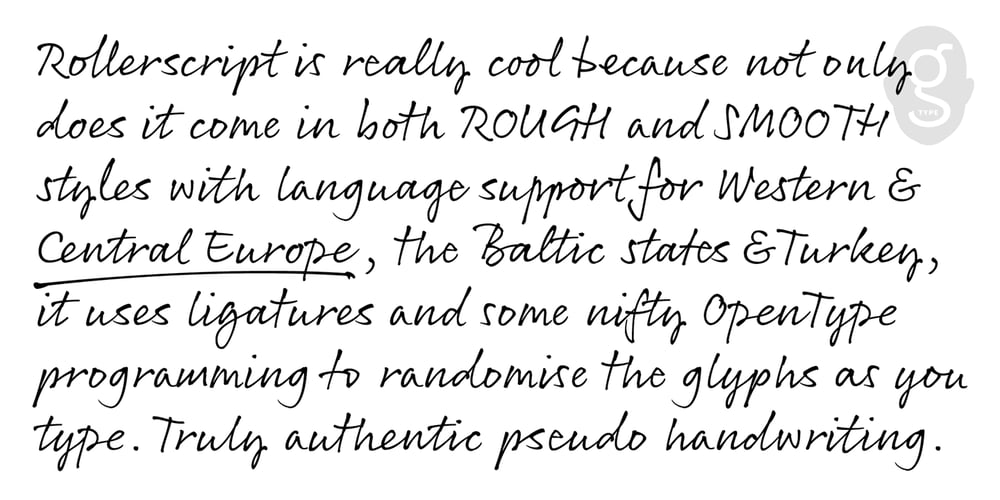
Rollerscript
Rollerscript font
Rollerscript Font Family was designed by Nick Cooke and published by G-Type. Rollerscript contains 2 styles and family package options. Rollerscript is, in effect, a more modern version of Olicana whose letterforms were drafted using a nibbed pen and ink. Handwriting tends to change depending on what instrument you’re using and with Rollerscript the outcome is decidedly more casual and informal than Olicana, though equally realistic. Pronounced pressure points where characters start, end or join make for a very authentic hand drawn appearance which is enhanced still further through the use of over 100 standard ligatures. Character pairings like ‘tt’ or ‘gg’ in normal handwriting fonts never look natural but in Rollerscript will now automatically change as you type! Rollerscript’s handwriting credentials are given a further boost with the inclusion of multiple underlines and sketched icons, arrows and emoticons. There is an extra stylistic set for alternate styles of cursive r and z. You can also choose between Rough and Smooth styles.